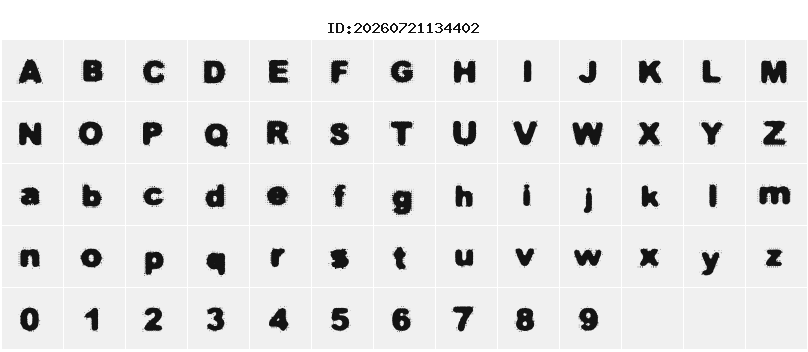
• Font Name: Ferrugem
About Ferrugem.ttf
Ferrugem.ttf is a modern, elegant sans-serif font designed for ultimate readability and visual harmony. Perfect for branding, headlines, web design, and print materials.